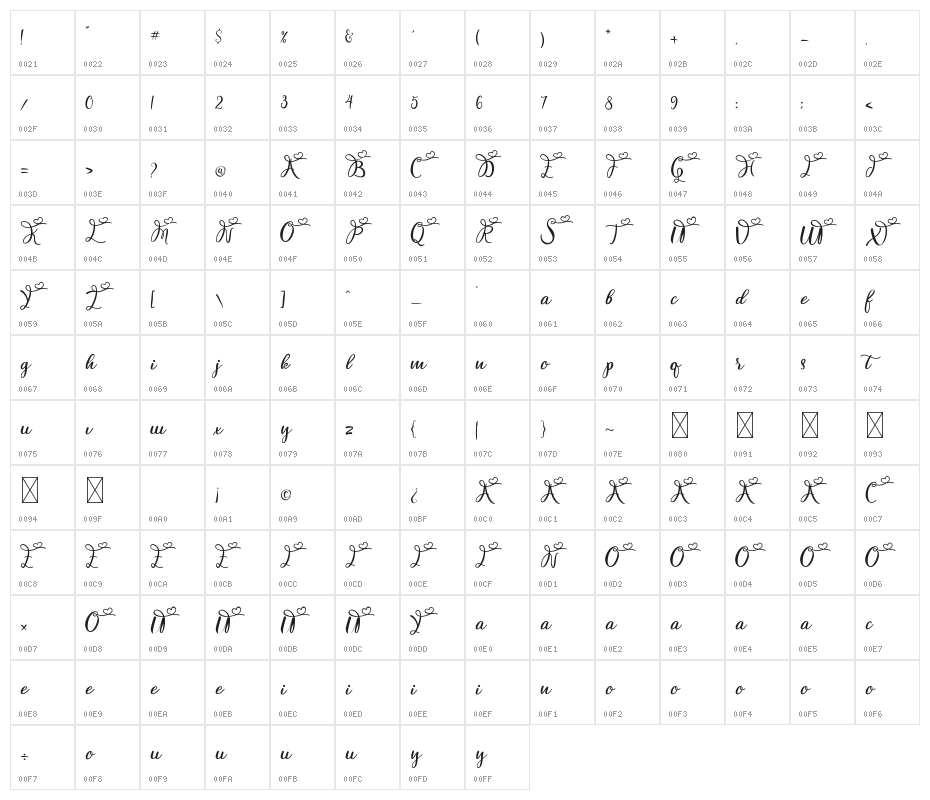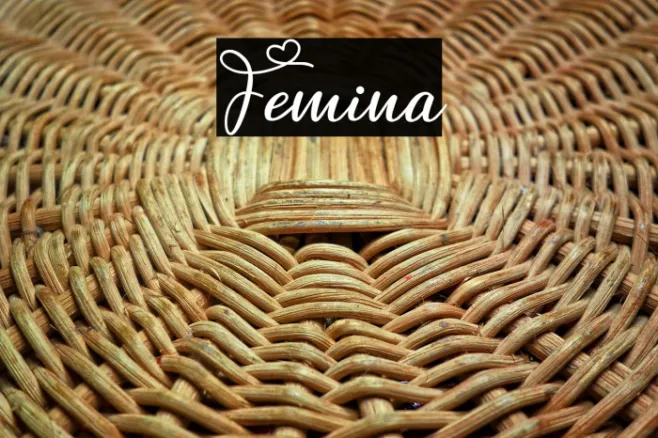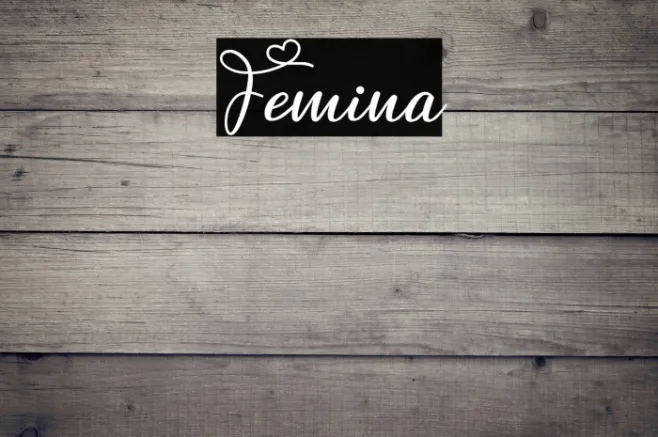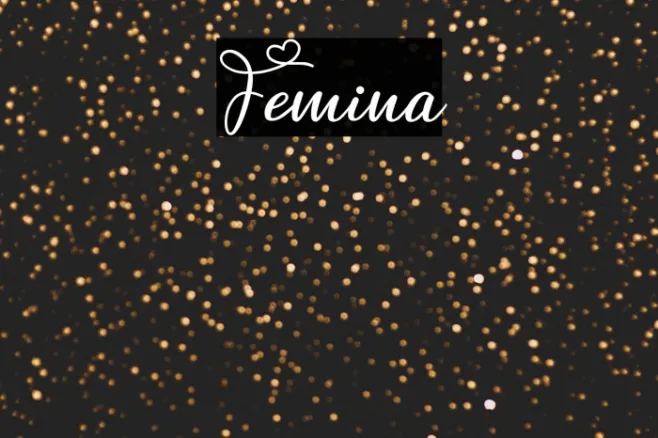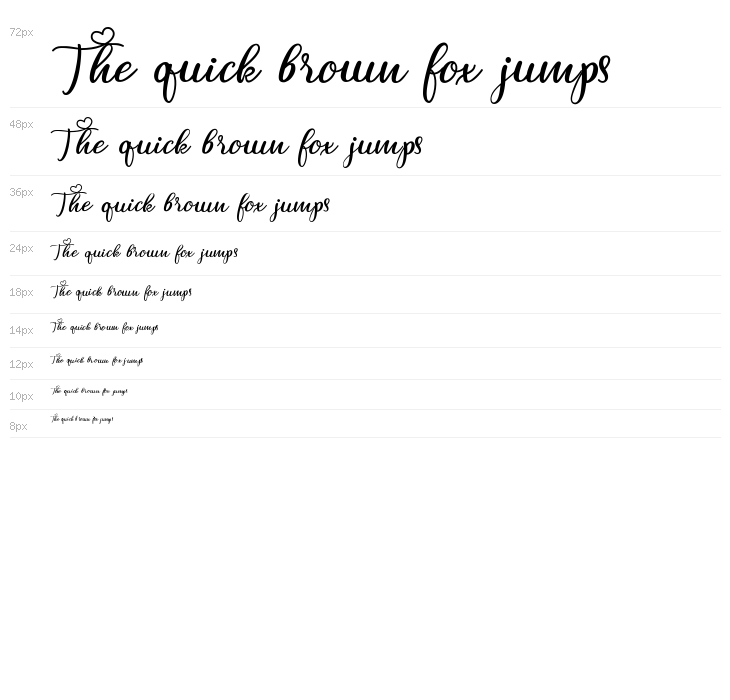
Femina Font
Femina Description
This elegant script font features a flowing, cursive style with intricate loops and flourishes, particularly in the uppercase letters. The lowercase letters maintain a smooth, connected appearance, enhancing the font's graceful and sophisticated look. The numerals and special characters are designed to complement the overall aesthetic, providing a cohesive and stylish appearance. The font's delicate strokes and decorative elements make it ideal for formal and romantic contexts, adding a touch of elegance and charm to any design.
| Overall Style | Elegant, Romantic |
| Use Case | Invitations, Branding, Decorative text |
| Proposed Projects | Ideal for wedding invitations, greeting cards, elegant branding, and romantic quotes. |